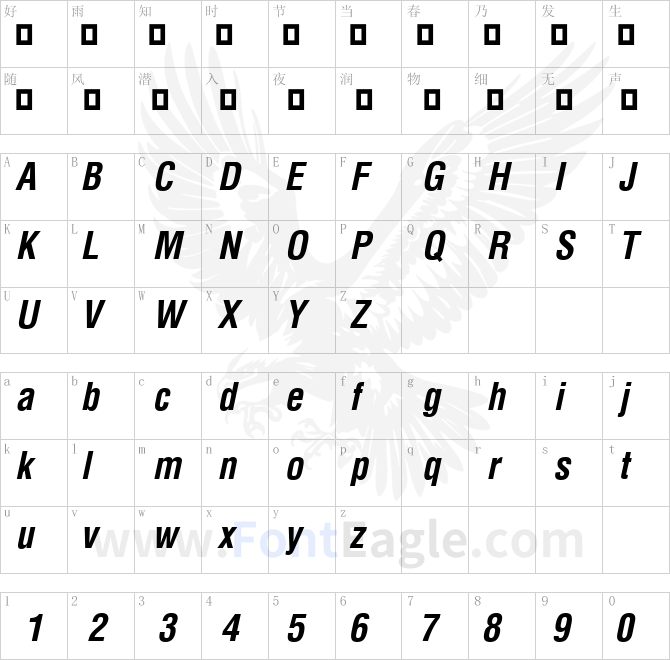
- Font name:Helvetica Condensed
- Font Subfamily ID:Agfa:Helvetica-Condensed-BoldObl:1999
- Font Full Name:Helvetica Condensed Bold Italic
- Postscript:Helvetica-Condensed-BoldObl